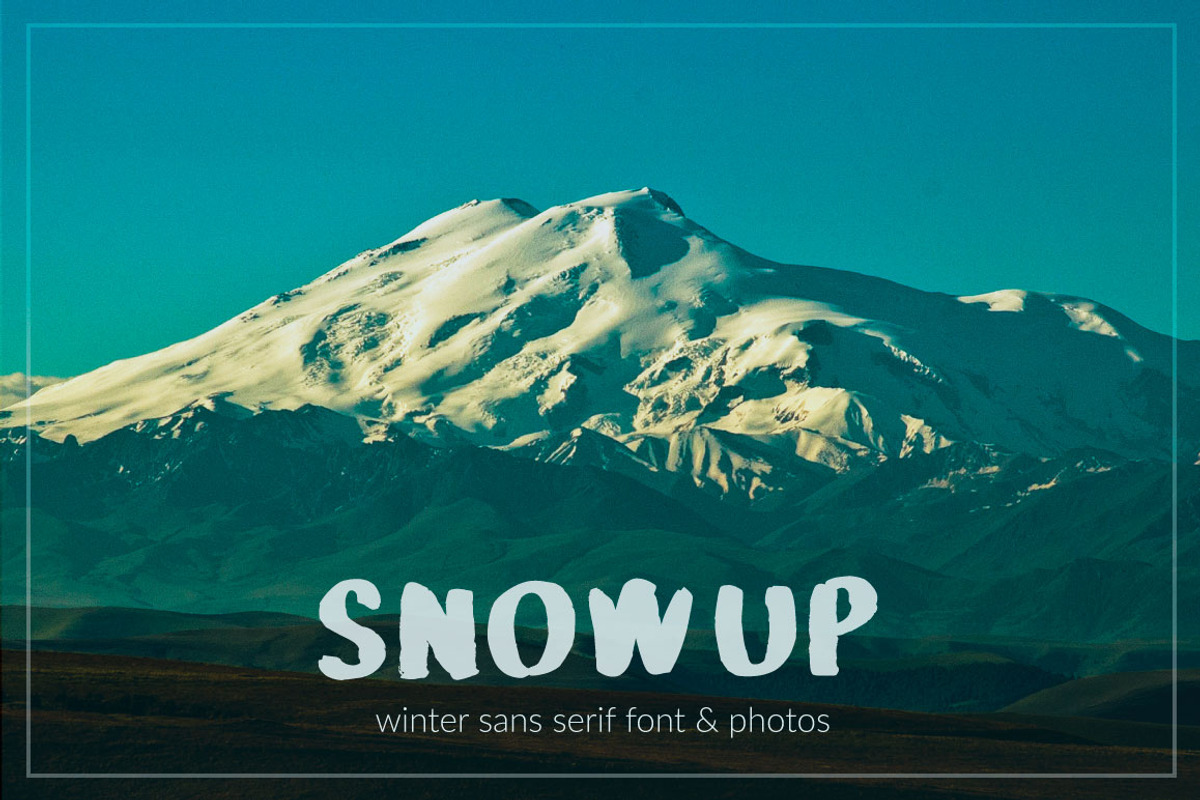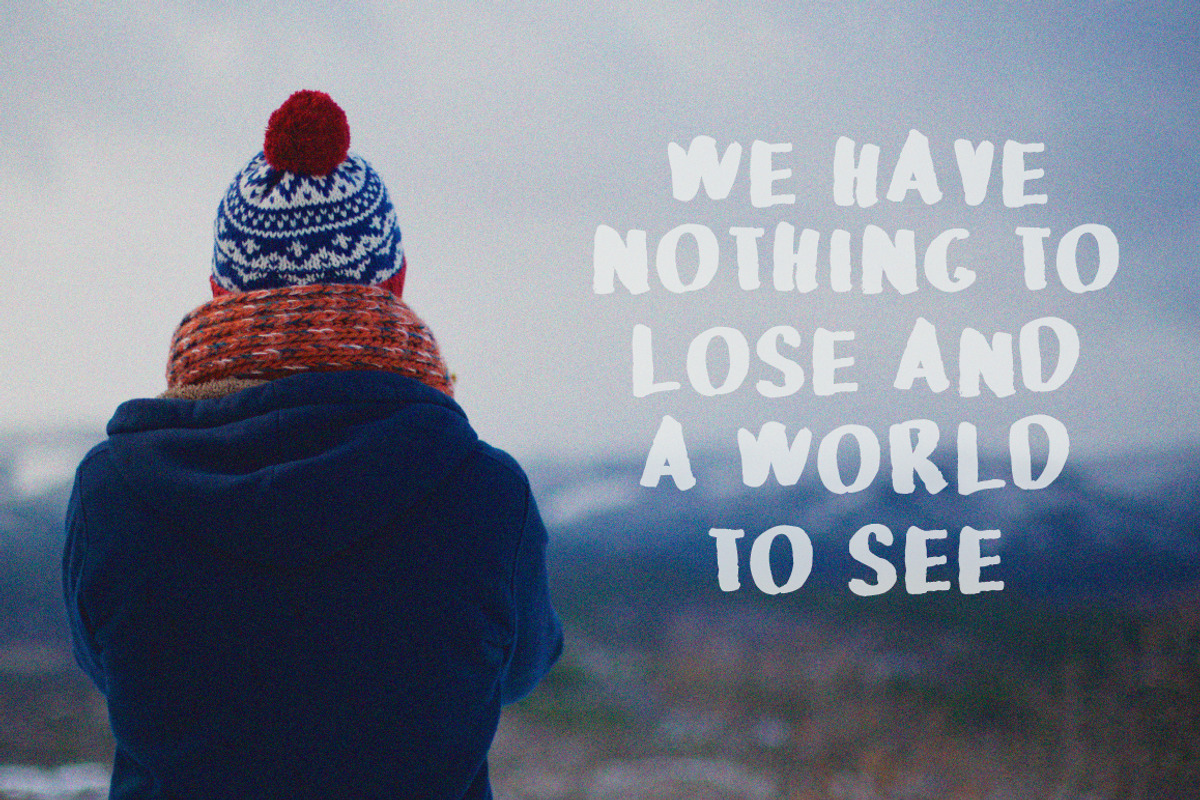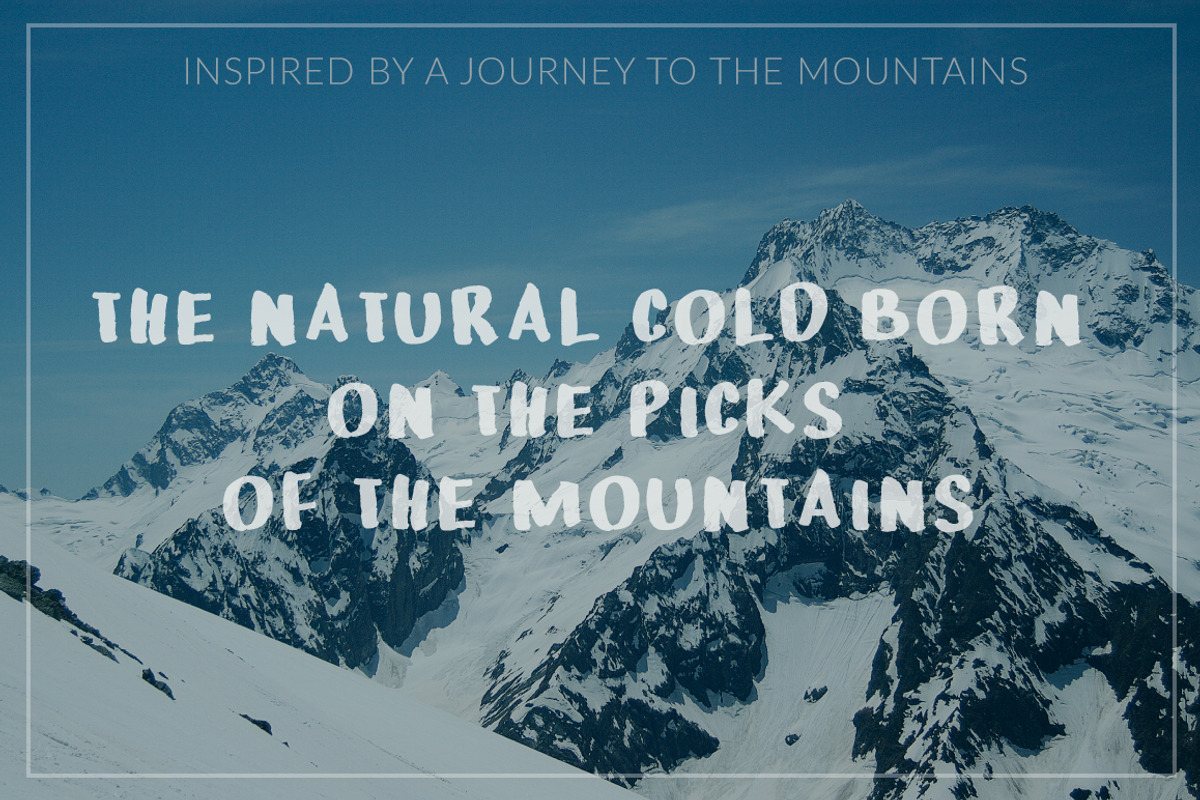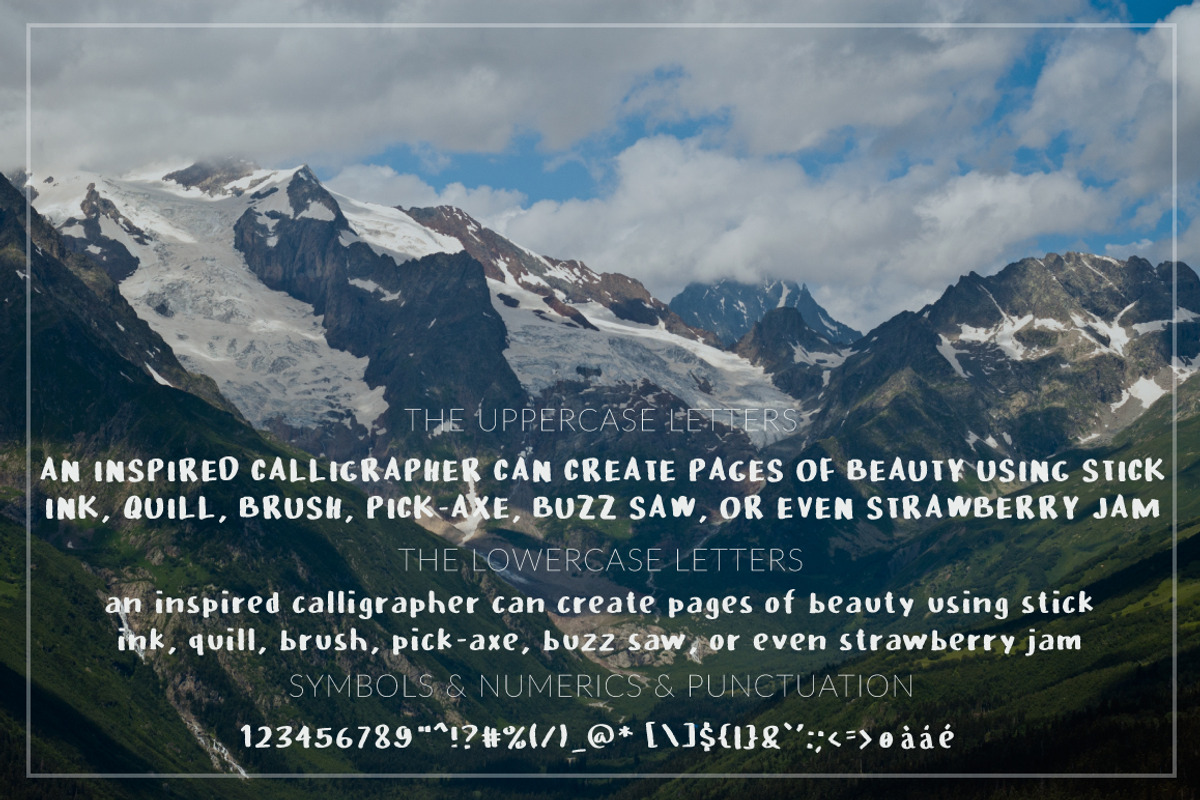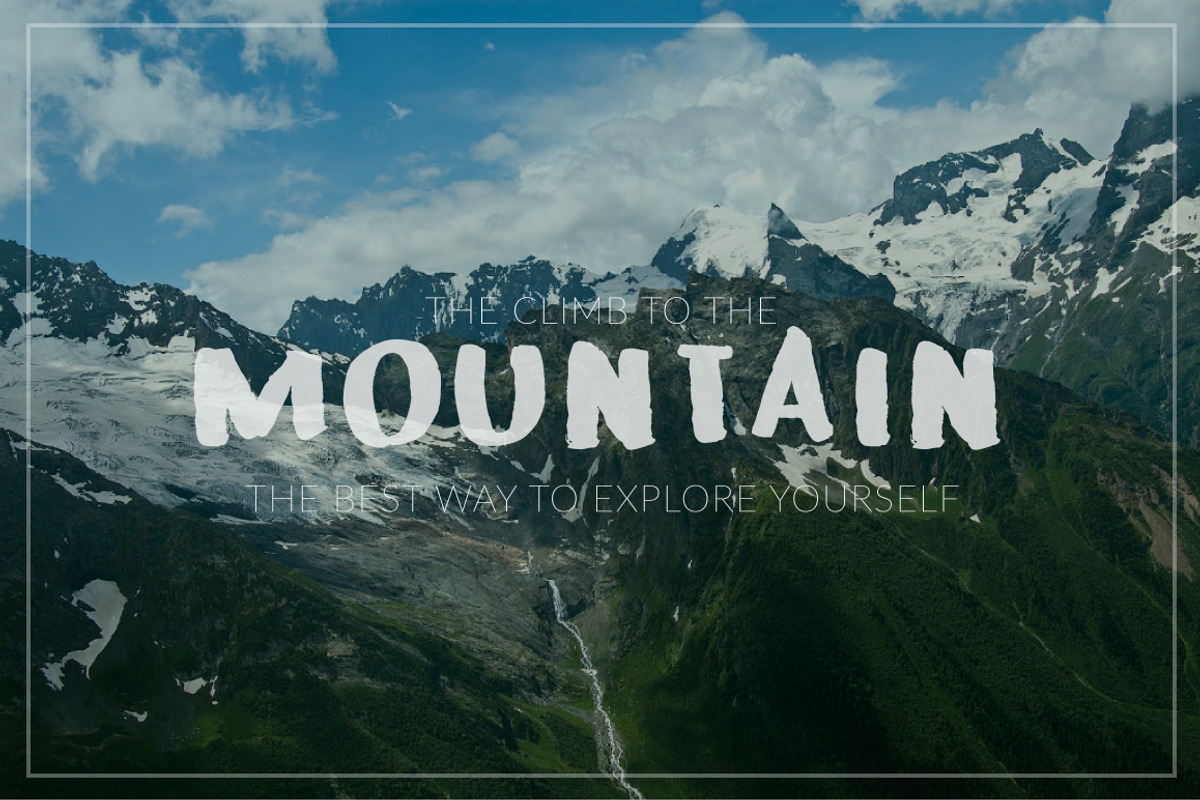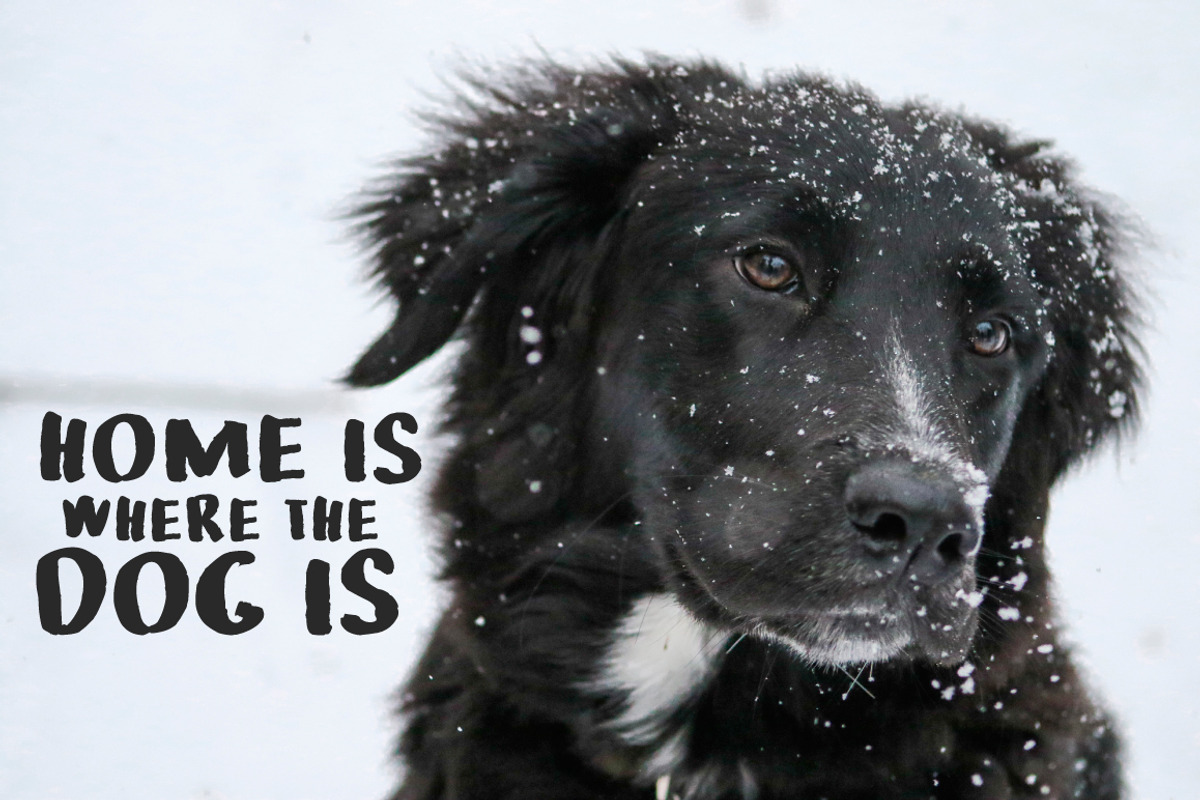
SnowUP Brush Font
SnowUP Brush Font by Pxlhead is a font selected for branding, posters, packaging, typography.
Why SnowUP Brush Font is worth a look
SnowUP Brush Font by Pxlhead fits naturally into Branding, posters, packaging, typography.